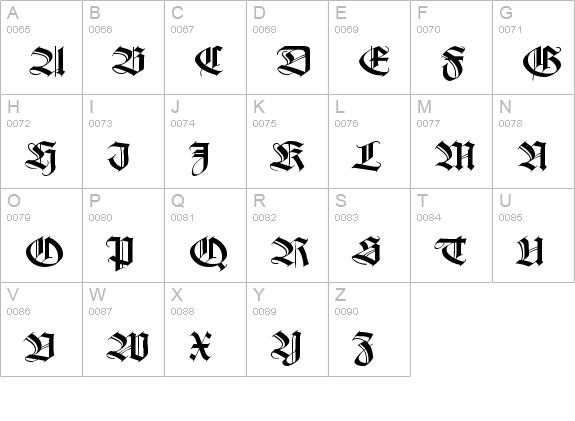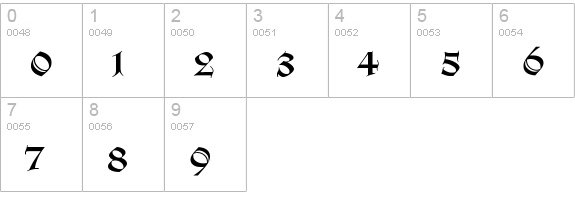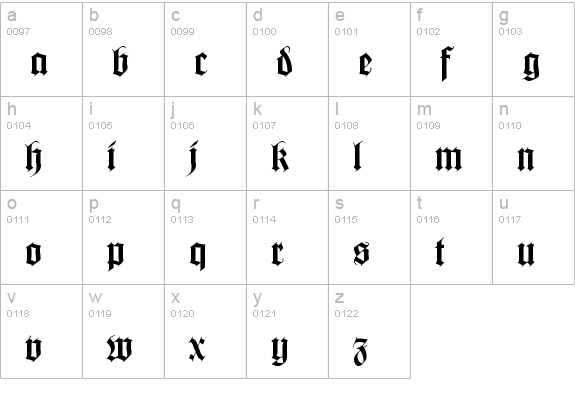
WilhelmKlingsporGotisch Wd Font Details
WilhelmKlingsporGotisch Wd is a stunning gothic font that exudes elegance and sophistication. It is a perfect blend of traditional and modern design elements, making it suitable for a wide range of projects. This font showcases intricate letterforms with sharp edges and delicate curves, giving it a timeless appeal. The WilhelmKlingsporGotisch Wd font is a masterpiece created by skilled typographers, and it is now available for free download at FontsMarket.com. This means that you can enjoy the beauty and versatility of this font without any cost. Whether you are a professional designer or a hobbyist, this font will elevate your creations and add a touch of sophistication. With its bold and distinctive appearance, WilhelmKlingsporGotisch Wd is ideal for headlines, posters, logos, and branding materials. It captures attention and leaves a lasting impression, making it a valuable asset for any design project. The font's versatility allows it to be used in various contexts, from vintage-inspired designs to modern and minimalist aesthetics. The attention to detail in the letterforms of WilhelmKlingsporGotisch Wd is truly remarkable. Each character is meticulously crafted, ensuring a harmonious balance between legibility and artistic flair. This font is perfect for conveying a sense of mystery and intrigue, making it a great choice for book covers, movie titles, and other creative projects. Downloading WilhelmKlingsporGotisch Wd from FontsMarket.com is incredibly easy and convenient. With just a few clicks, you can have this extraordinary font at your fingertips, ready to elevate your designs to new heights. Don't miss out on the opportunity to enhance your creative projects with this exceptional font that is freely available to all.